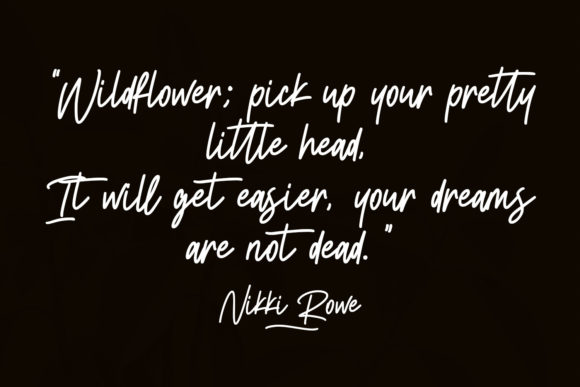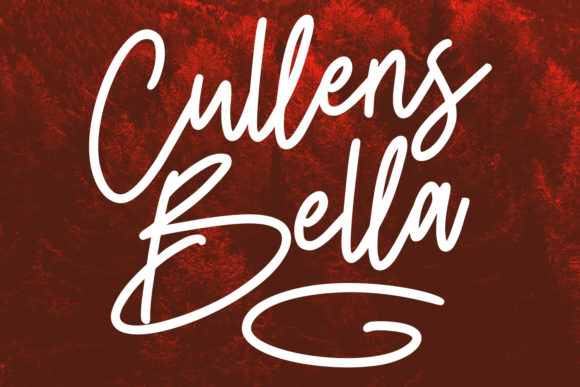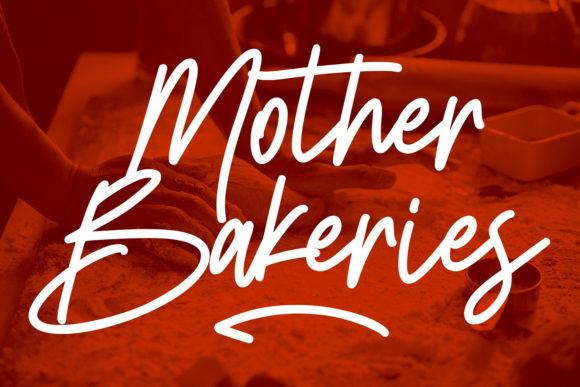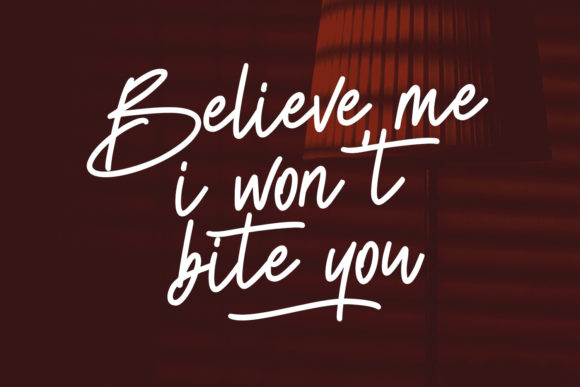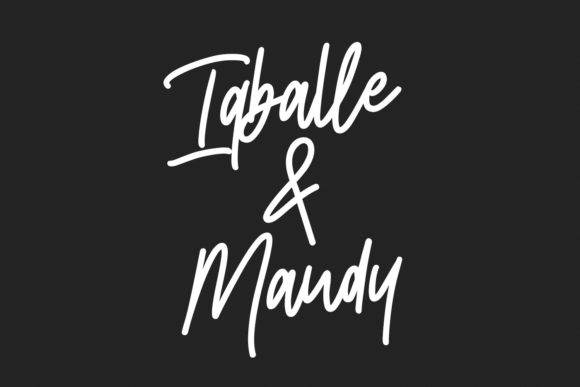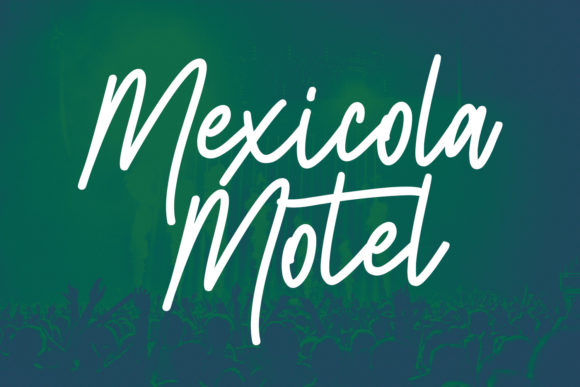
Introduction to Restfaws Font Font
Fonts play a crucial role in design, and the Restfaws Font font is a typeface that brings both character and versatility to any project. Whether you’re working on a branding project, a website, or a print design, the Restfaws Font font offers a unique style that can elevate your work.
Restflaws is a casual script font that will enhance the beauty of your creative work.
It is very suitable for logo design, social media posts, movie and book titles, short text even a long text letter, and many more Add this stunning font to any of your projects and capture the attention of everyone.
Key Features of Restfaws Font Font
Why Choose Restfaws Font Font?
The Restfaws Font font is more than just a typeface – it’s a design tool that helps you communicate your message with style and clarity. Its unique character set and versatile design make it suitable for a wide range of applications, from elegant invitations to bold headlines.
With its carefully crafted letterforms and balanced proportions, the Restfaws Font font ensures readability and visual appeal across all mediums.
What makes Restfaws Font font special?
The Restfaws Font font stands out with its unique design, exceptional readability, and versatility across various design applications.